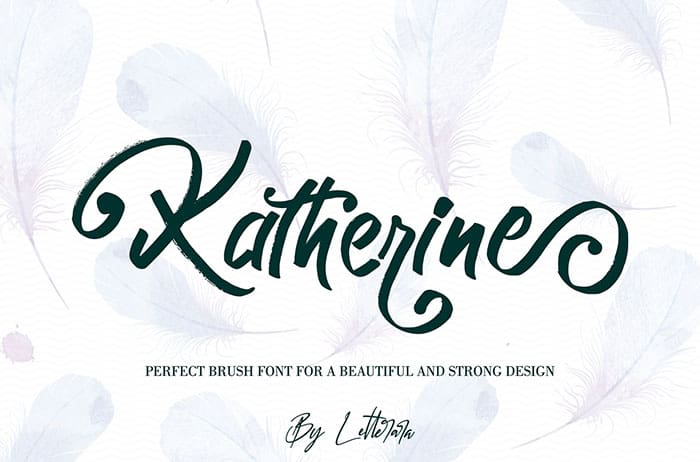
Free Katherine Brush Font
Katherine Brush Font
Free Katherine brush font. It has a natural handmade look with an less regular baseline. Brush Stroke is suitable for title designs, invitations, books titles, stationery, quotes, branding and much more. Created this font by Thomas Aradea. You can also search more freeĀ Brush Fonts. Thanks!